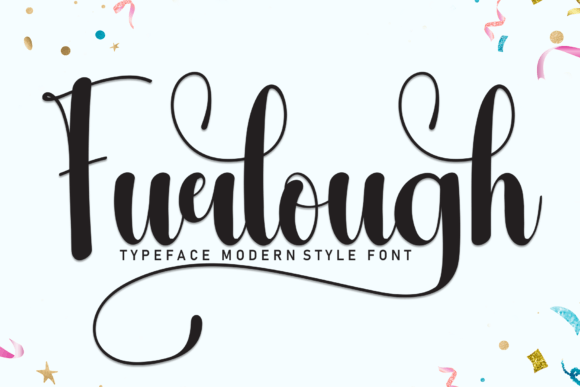
Behold! Furlough Font, a script font brought to life by the talented Strongkeng Old, is a feast for the eyes, a sensory delight that will infuse your designs with undeniable enchantment. Its playful charm is a perfect match for wedding invitations, cards, and any project that craves the magic of a handwritten touch.
Unlike stiff, formal fonts, Furlough Font invites you to embrace your playful side, to let loose and dance through your designs with carefree abandon. With its delightful quirks and a touch of whimsy, this font is guaranteed to add a spark of joy to any project. It's like wrapping your words in a warm blanket of creativity and charm.
Imagine your designs adorned with Furlough Font's dancing characters. Wedding invitations transformed into timeless keepsakes, each letter carrying the promise of a lifetime of happiness. Cards infused with a touch of warmth and personalization, making every message feel like a heartfelt embrace. Logos embraced by a font that speaks of creativity, uniqueness, and a dash of fun.
Whether you're a seasoned designer seeking inspiration or a creative enthusiast longing for the perfect font to express your vision, Furlough Font is your muse. Let it take you on a whimsical journey where every character is a little work of art, and every word a melody that sings.
So, dive into the world of Furlough Font. Discover how its handwritten charm can transform your designs into masterpieces, injecting them with a touch of magic that will leave a lasting impression. Embrace the spirit of creativity and let your imagination soar as you play with this font's endless possibilities.